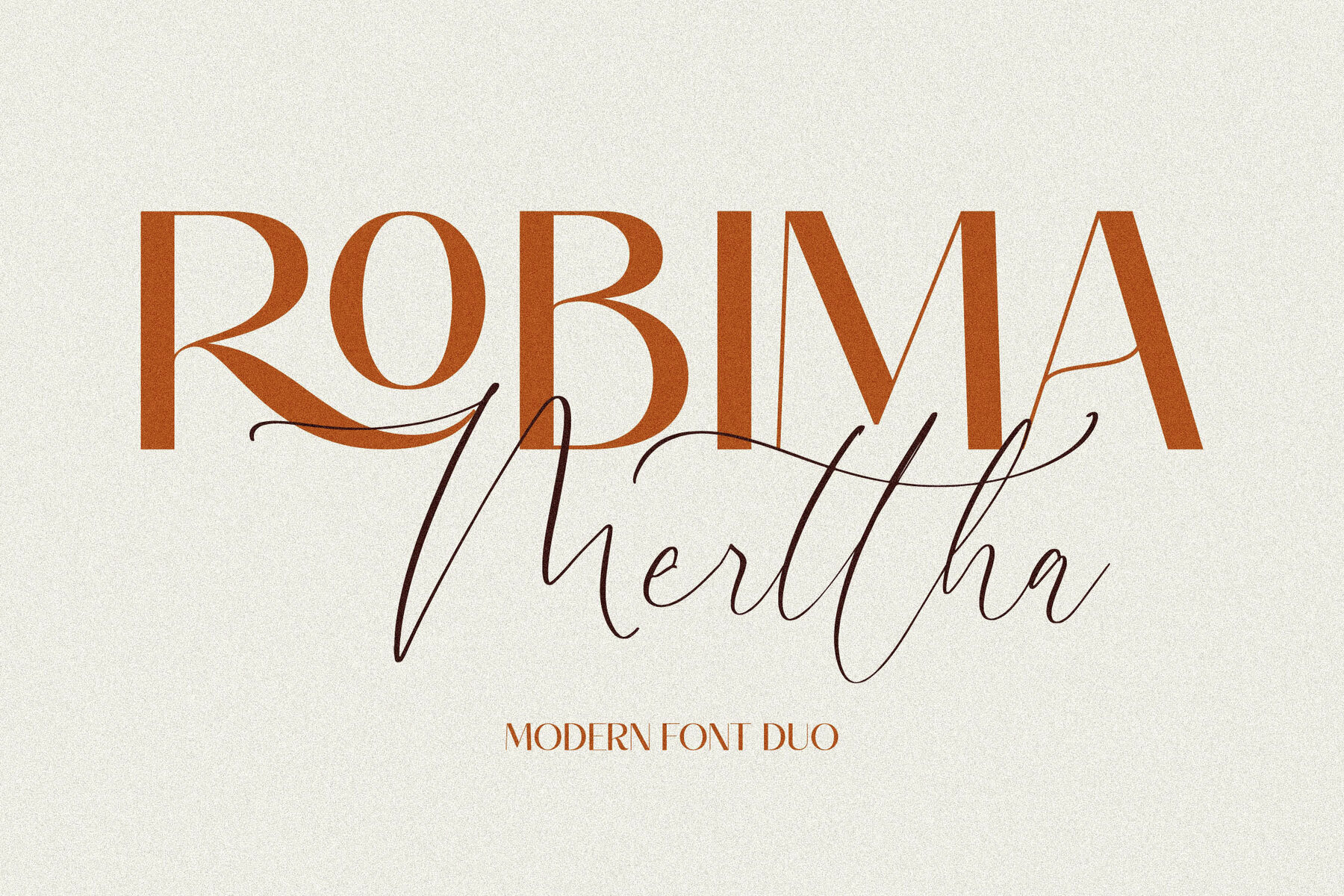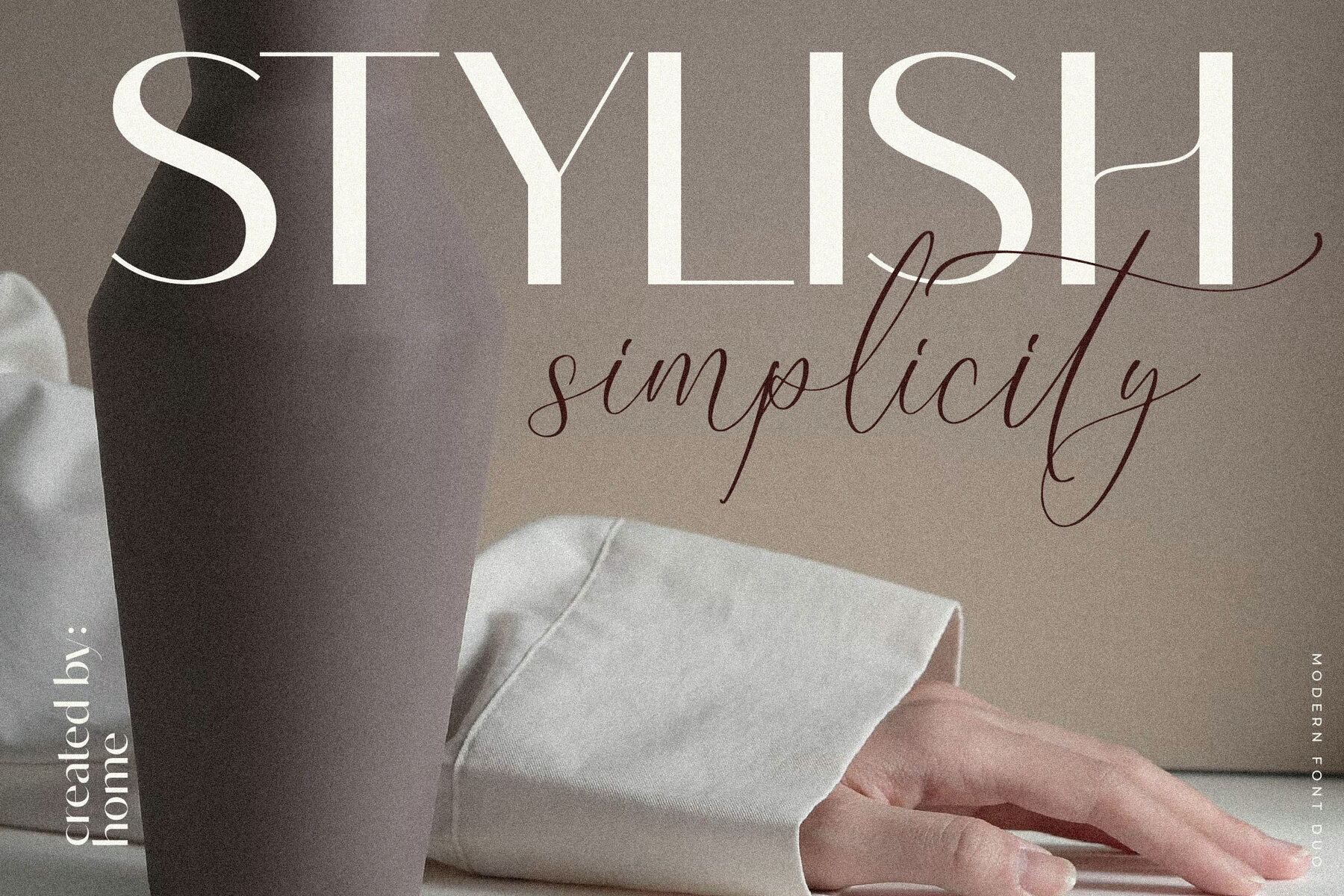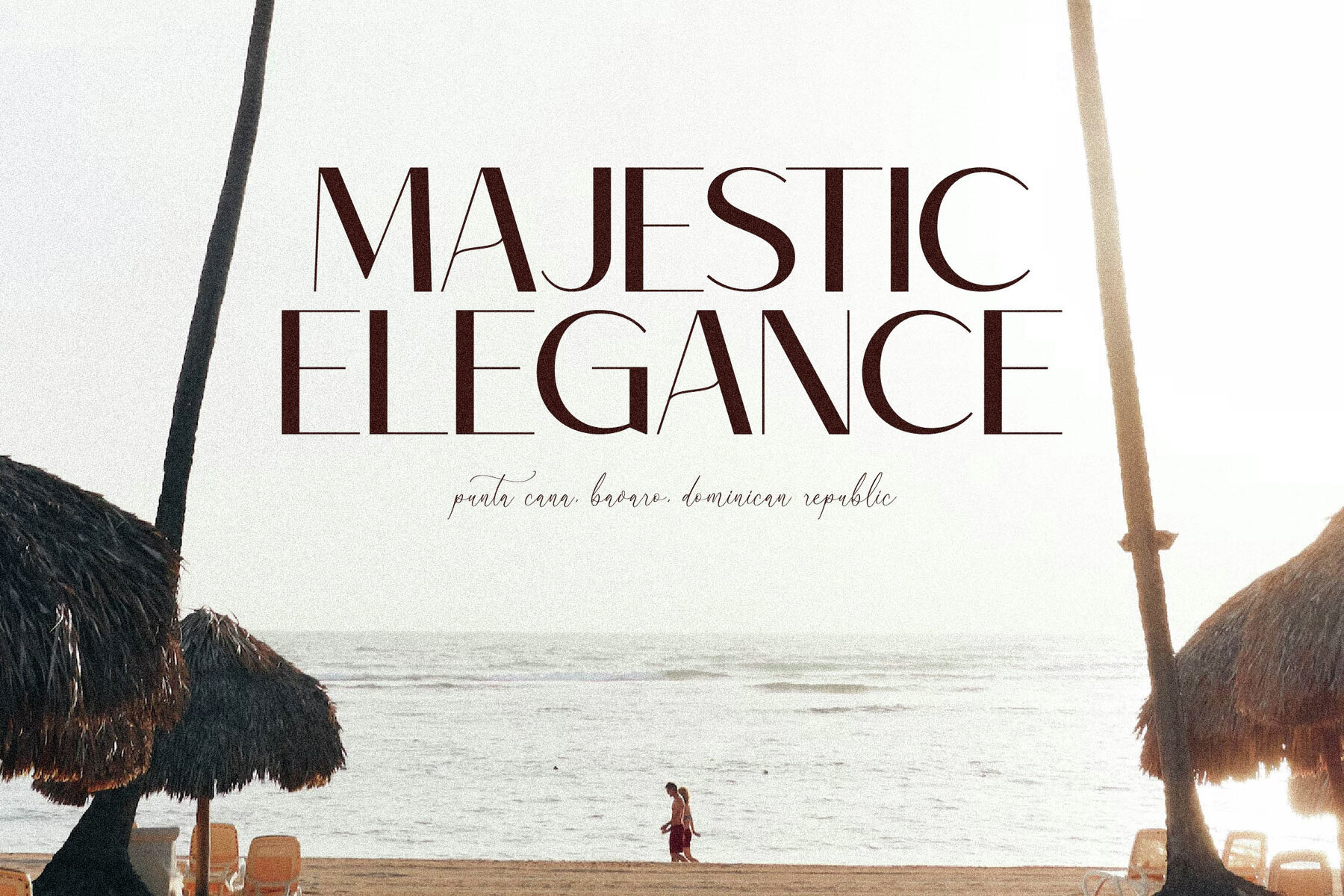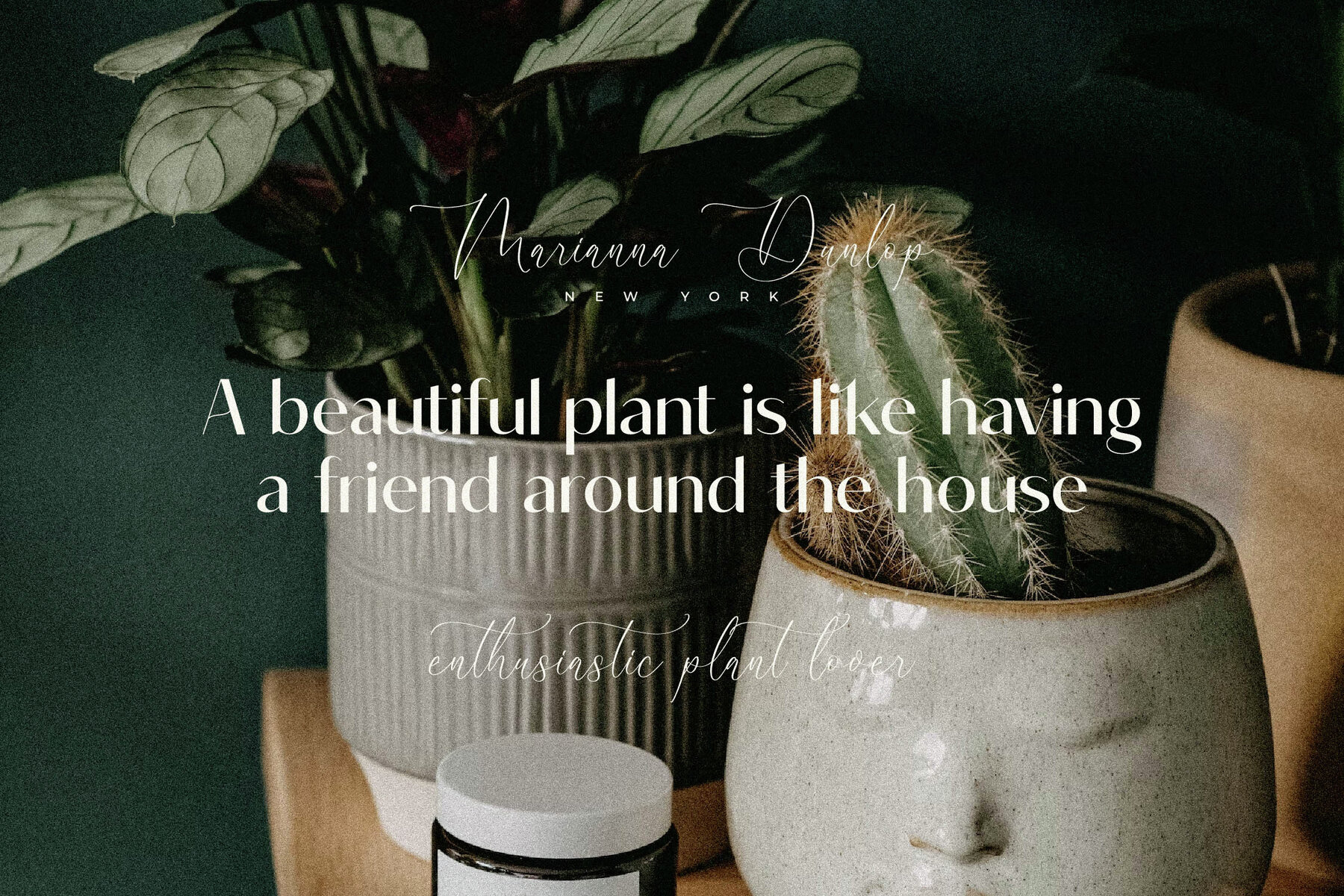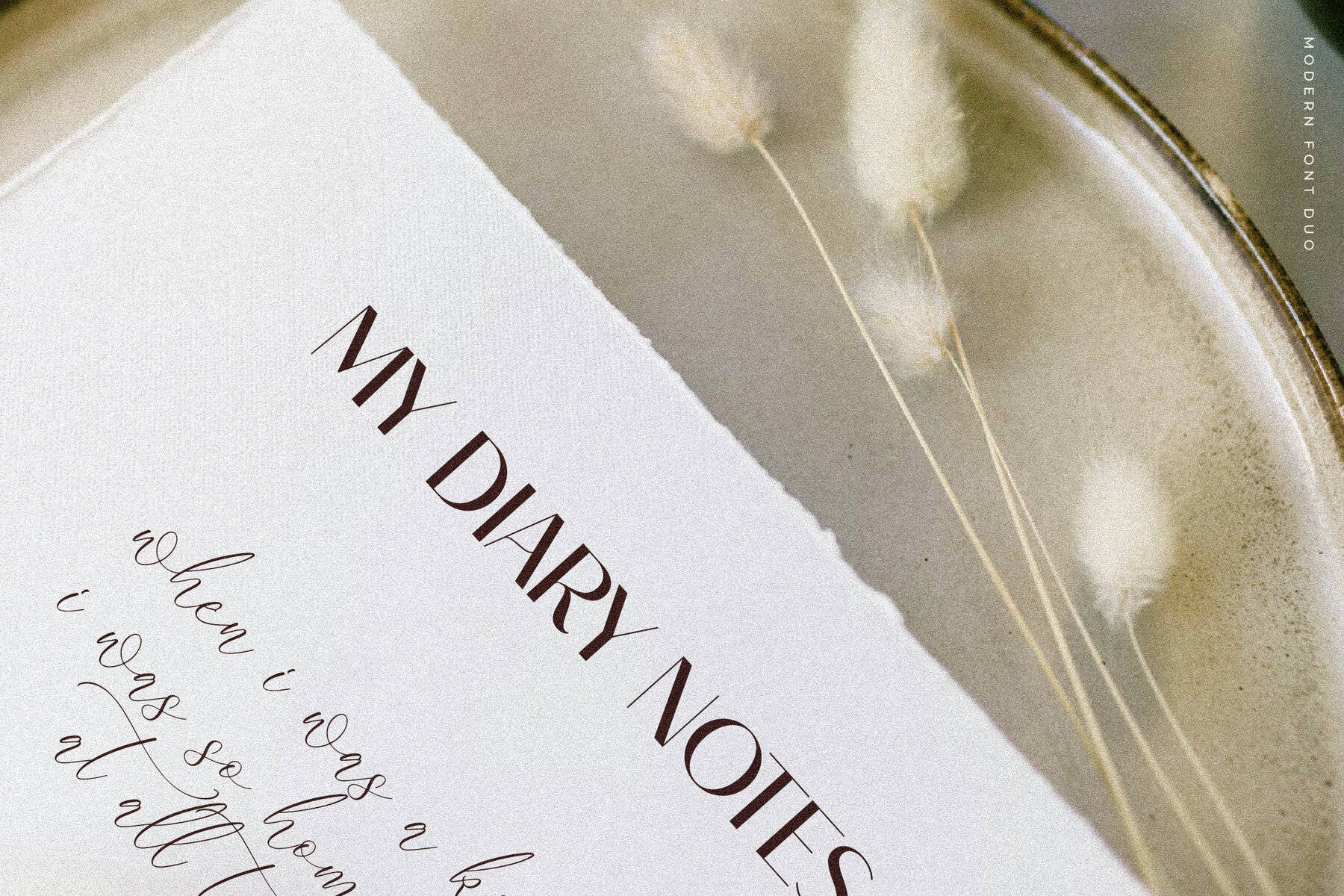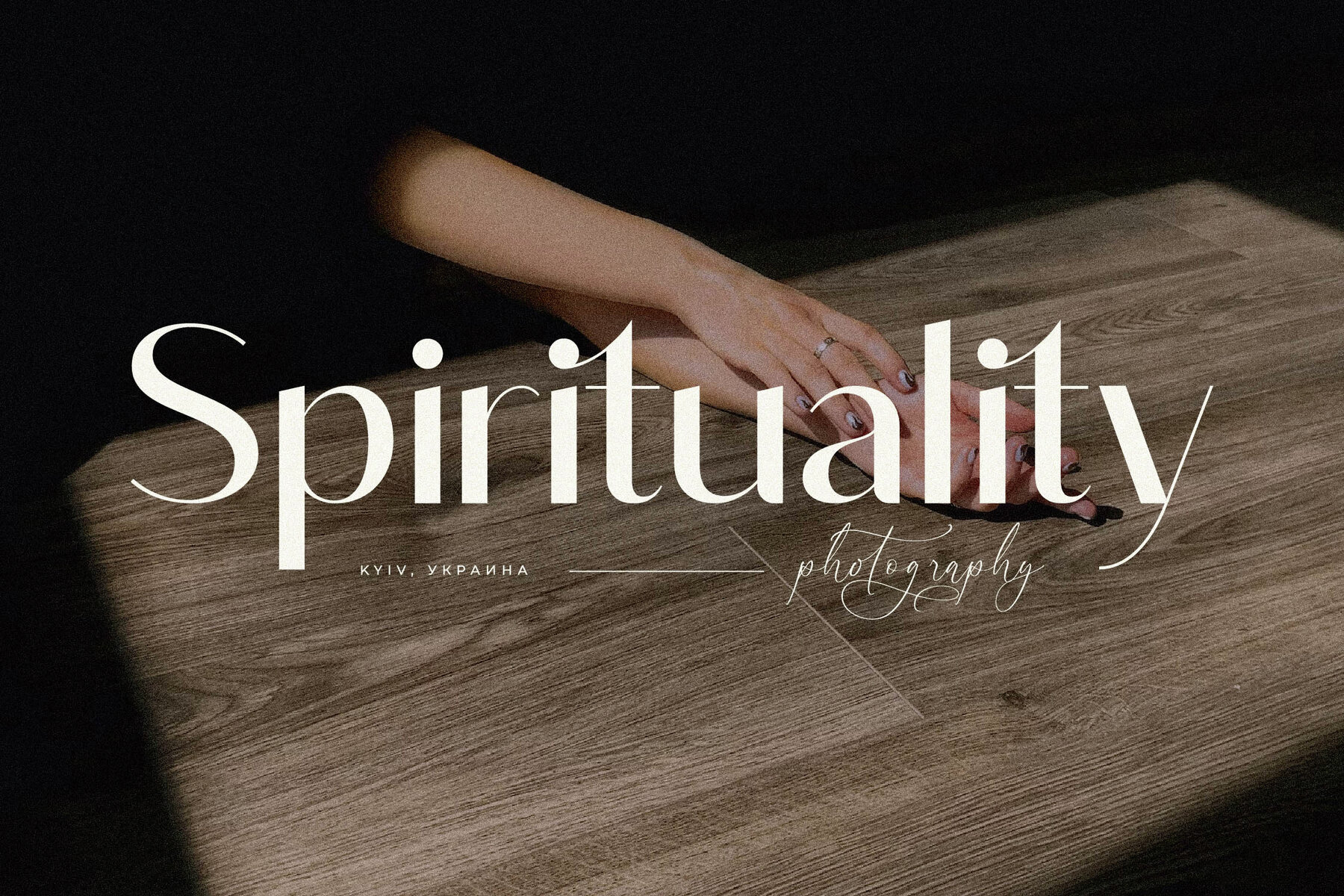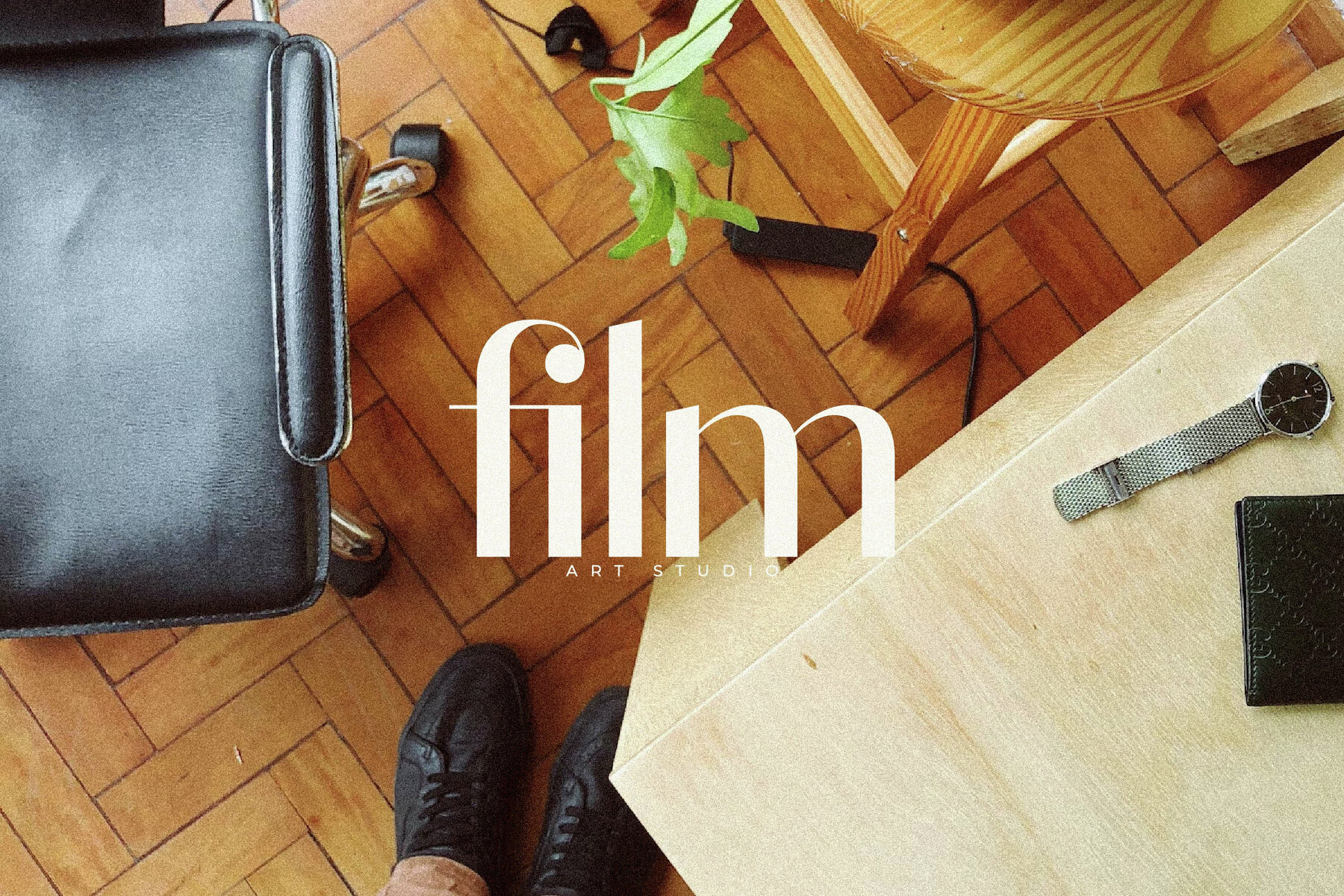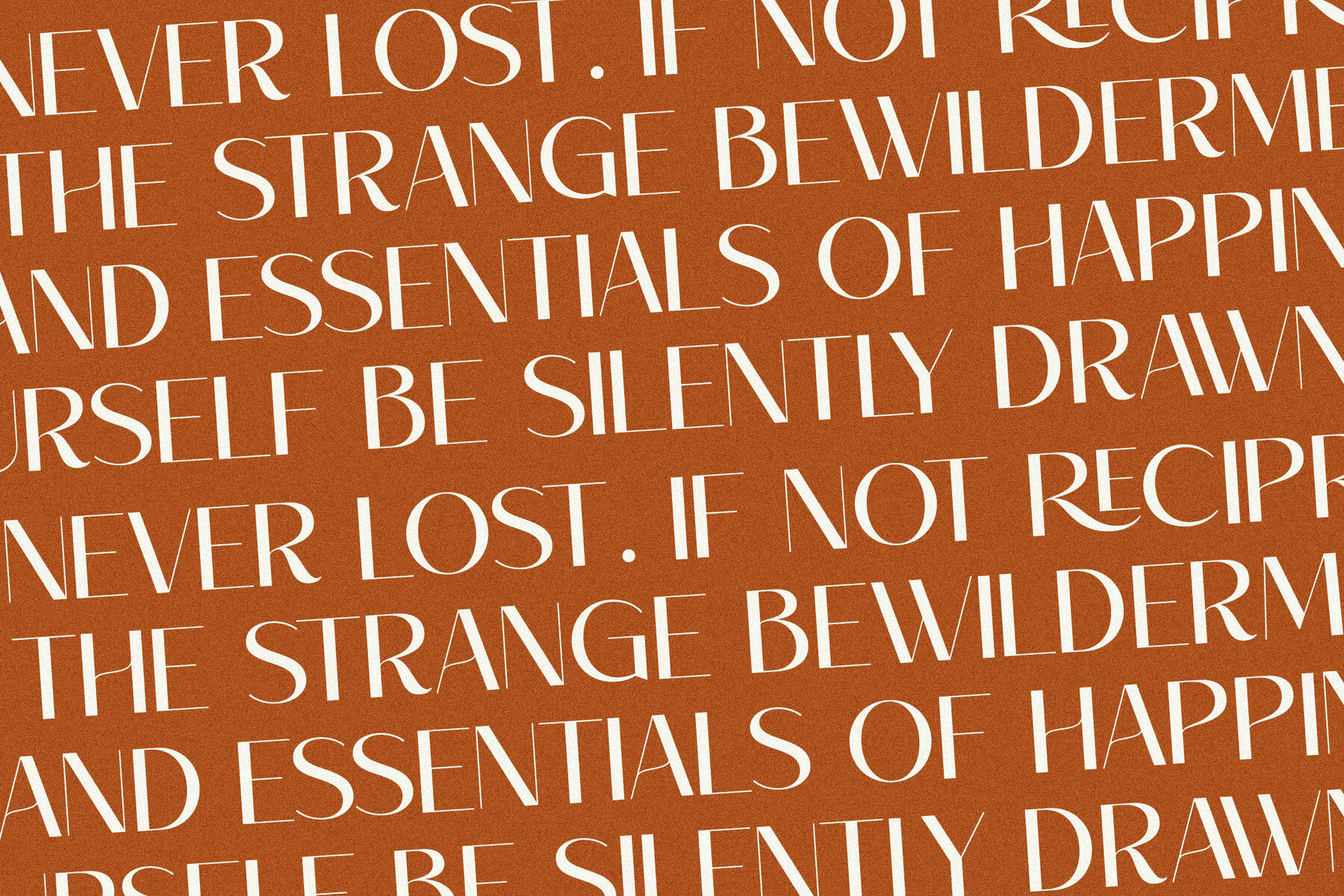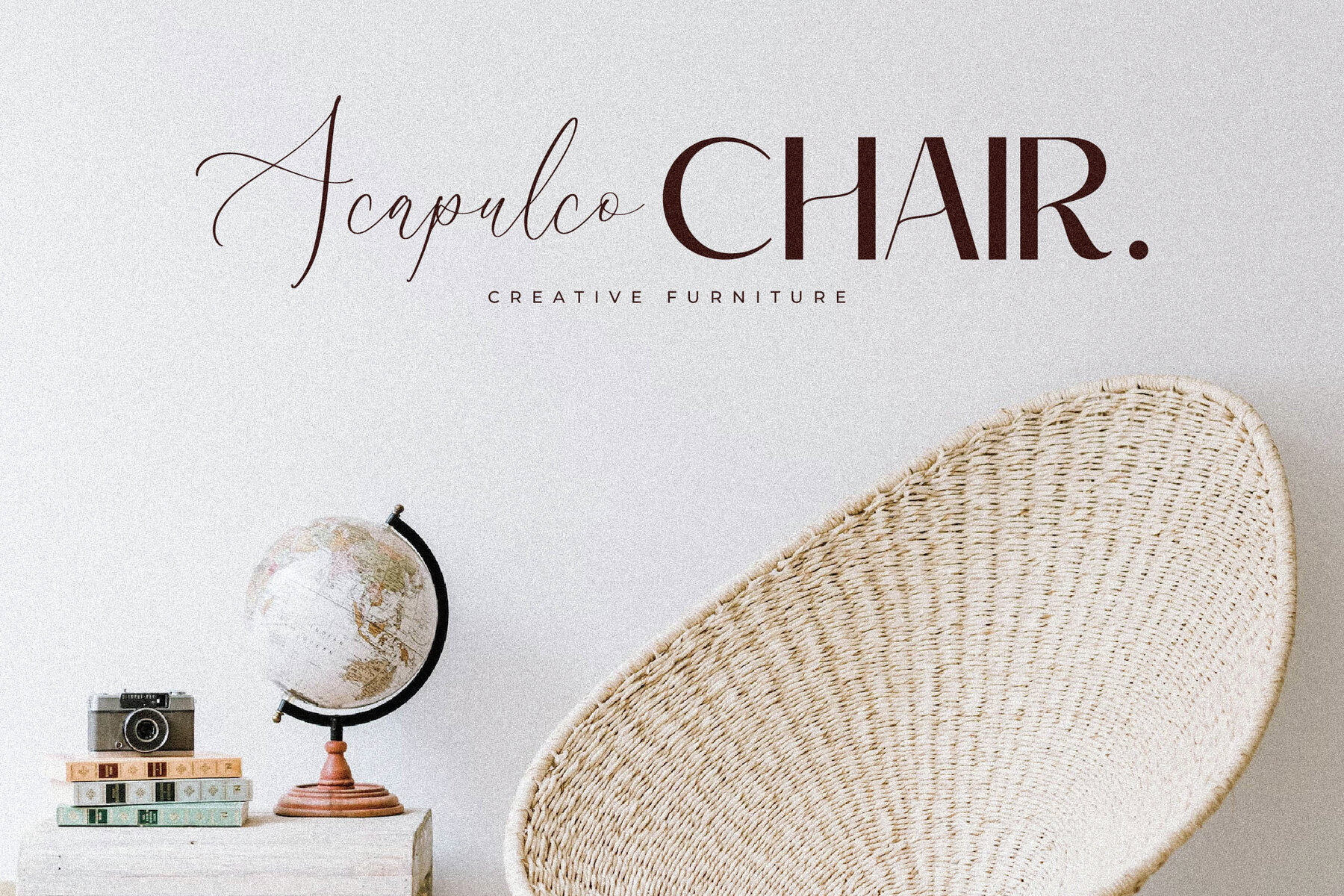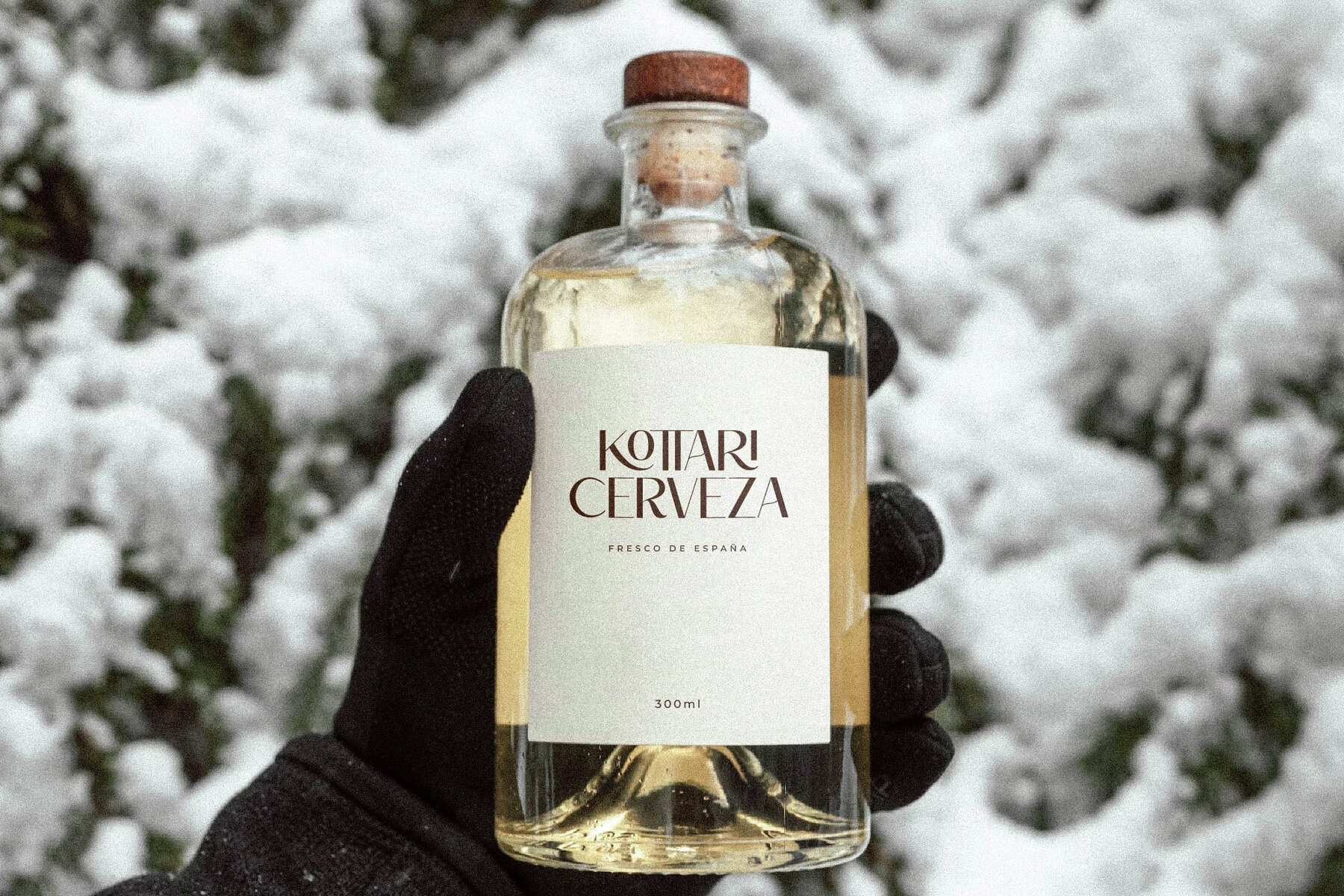
ROBIMA MERTTHA Font
ROBIMA MERTTHA SCRIPT Regular
ROBIMA MERTTHA SANS SERIF Regular
ROBIMA MERTTHA SANS SERIF Italic
ROBIMA MERTTHA SCRIPT Italic
The Robima Merttha Font Duo by Storytype offers an exquisite blend of serif and script styles, characterized by a modern and unique look. This versatile typeface is ideal for adding a touch of elegance to luxury logos, book or movie titles, fashion branding, magazines, clothing designs, and more.Robima Merttha Font Duo: A Unique Serif and Script Typeface